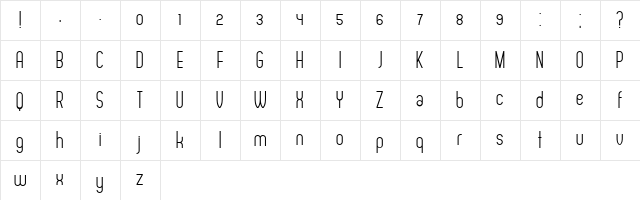
Adelino Thin
Design Context for Adelino Typeface
Adelino takes a measured approach to typography — its balanced proportions and neutral character make it a reliable workhorse for both digital and print work. Its slender proportions lend an understated elegance to any composition.